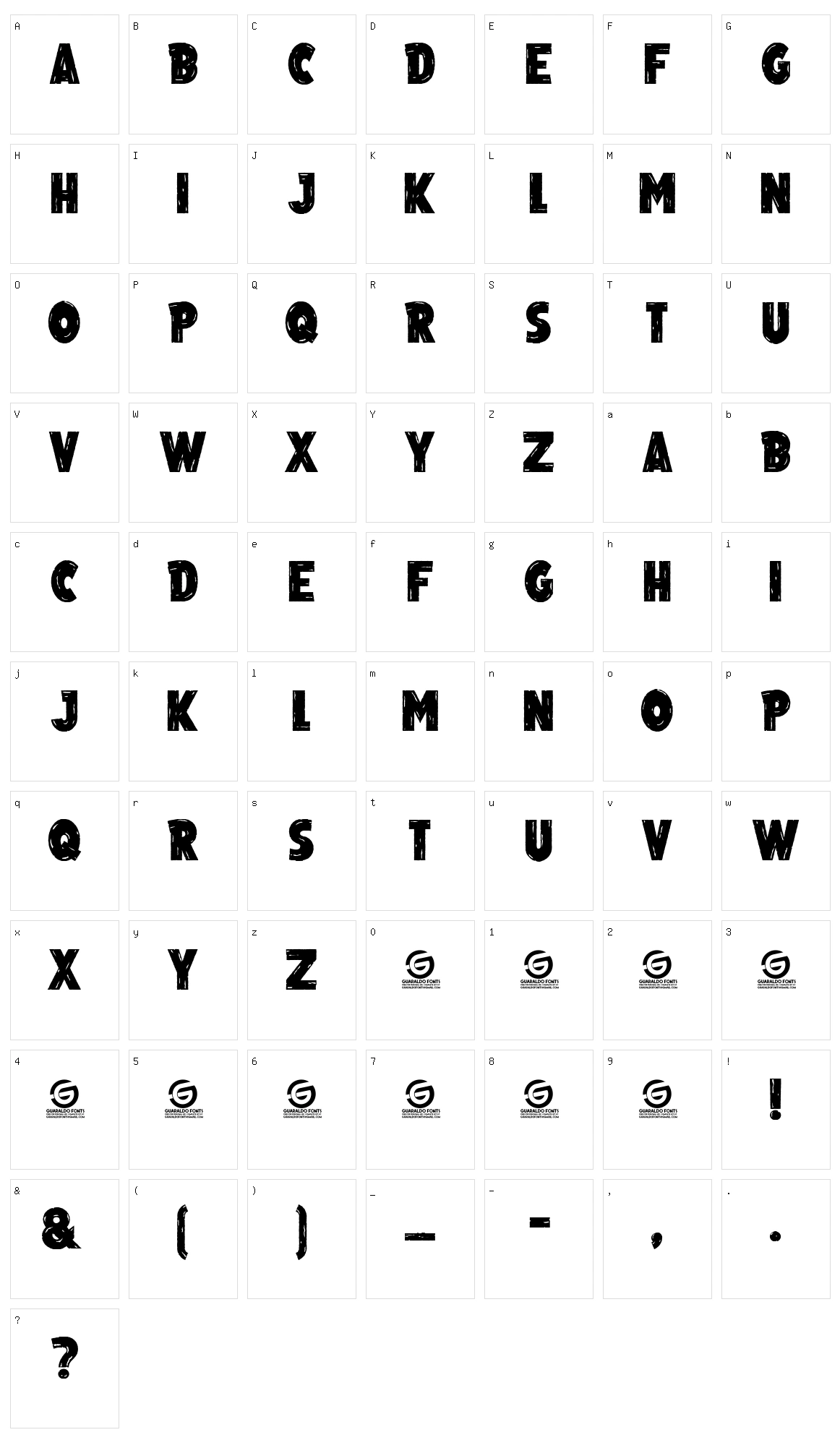
The free font Dusty Ranch is carefully designed by Guaraldo Fonts, showcasing a thoughtful balance of creativity and usability and falls under the Western font style. When you download the ZIP file, it contains only 392.36 KB of font files, making it lightweight and quick to download. Please review the license details below to understand permitted usage and distribution rights. If license information is not available, we recommend using this font for personal projects only or contacting the author directly for commercial usage permissions.
Guaraldo Fonts.